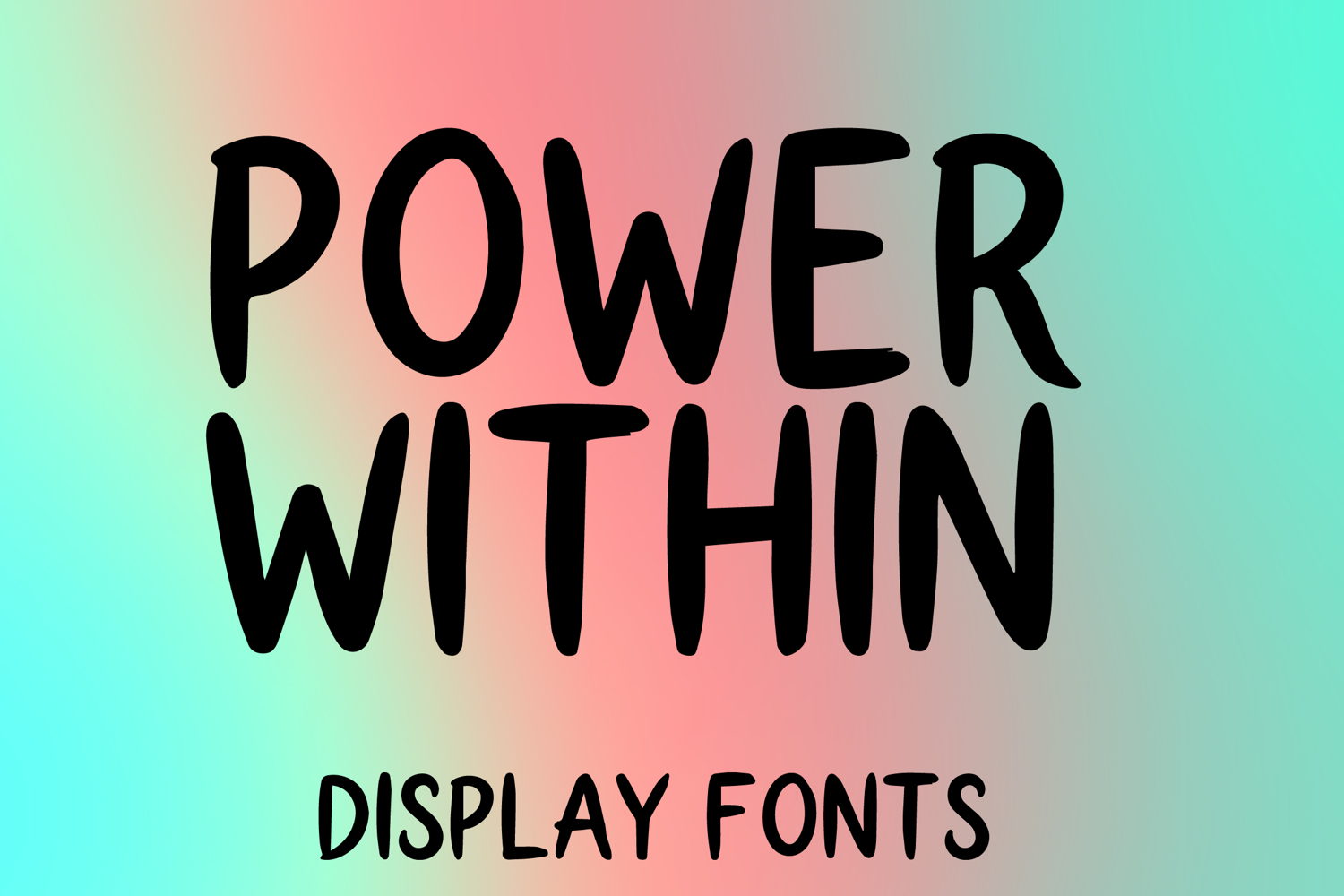
POWER WITHIN
POWER WITHIN is a bold display font with a tall hand-drawn style and clean modern character. Its uppercase letterforms feature thick smooth strokes, slightly uneven handcrafted details, and a strong vertical structure that create a powerful, confident, and eye-catching look. Designed with uppercase letters A–Z and numbers 0–9, POWER WITHIN is perfect for branding, posters, packaging, logos, headlines, and social media graphics that need a striking and memorable statement.